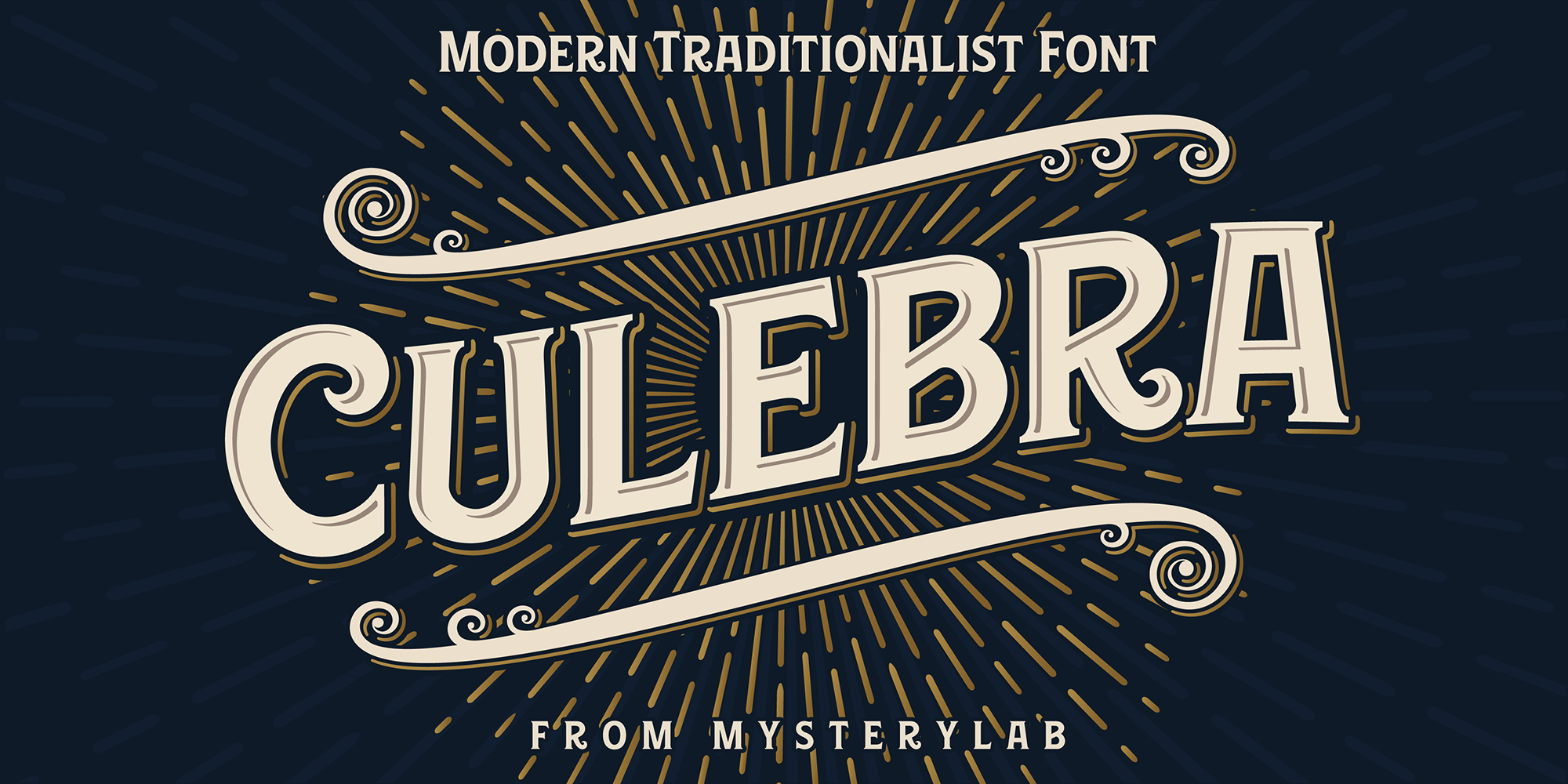
Culebra Font is perfect for Latin American cultural projects, Caribbean tourism branding, tropical resort materials, salsa dance promotions, exotic wildlife campaigns, snake handler organizations, reptile conservation efforts, Mediterranean travel guides, serpentine fashion designs, and sinuous applications that celebrate the graceful power and hypnotic beauty of serpentine movement and Latin heritage.
What makes Culebra Font truly exciting is its mesmerizing capture of serpentine grace and Latin cultural vibrancy that embodies the fluid elegance and mysterious allure of snake-like movement combined with passionate Hispanic heritage. This exceptional typeface combines sinuous curves with cultural authenticity, featuring flowing letterforms and hypnotic character that convey both natural grace and Latin passion. The font's serpentine personality and cultural richness make it perfect for brands seeking to communicate fluid movement, exotic appeal, and the captivating energy of Latin American culture and tropical environments.
The Culebra Font family includes multiple weights and styles: Light, Regular, Medium, Bold, and Serpentine variations designed for maximum cultural impact. Each family member maintains the distinctive flowing character while offering flexibility for diverse Latin applications and tropical branding systems. The comprehensive character set supports international typography needs and cultural design elements, making it suitable for global Latin communications.